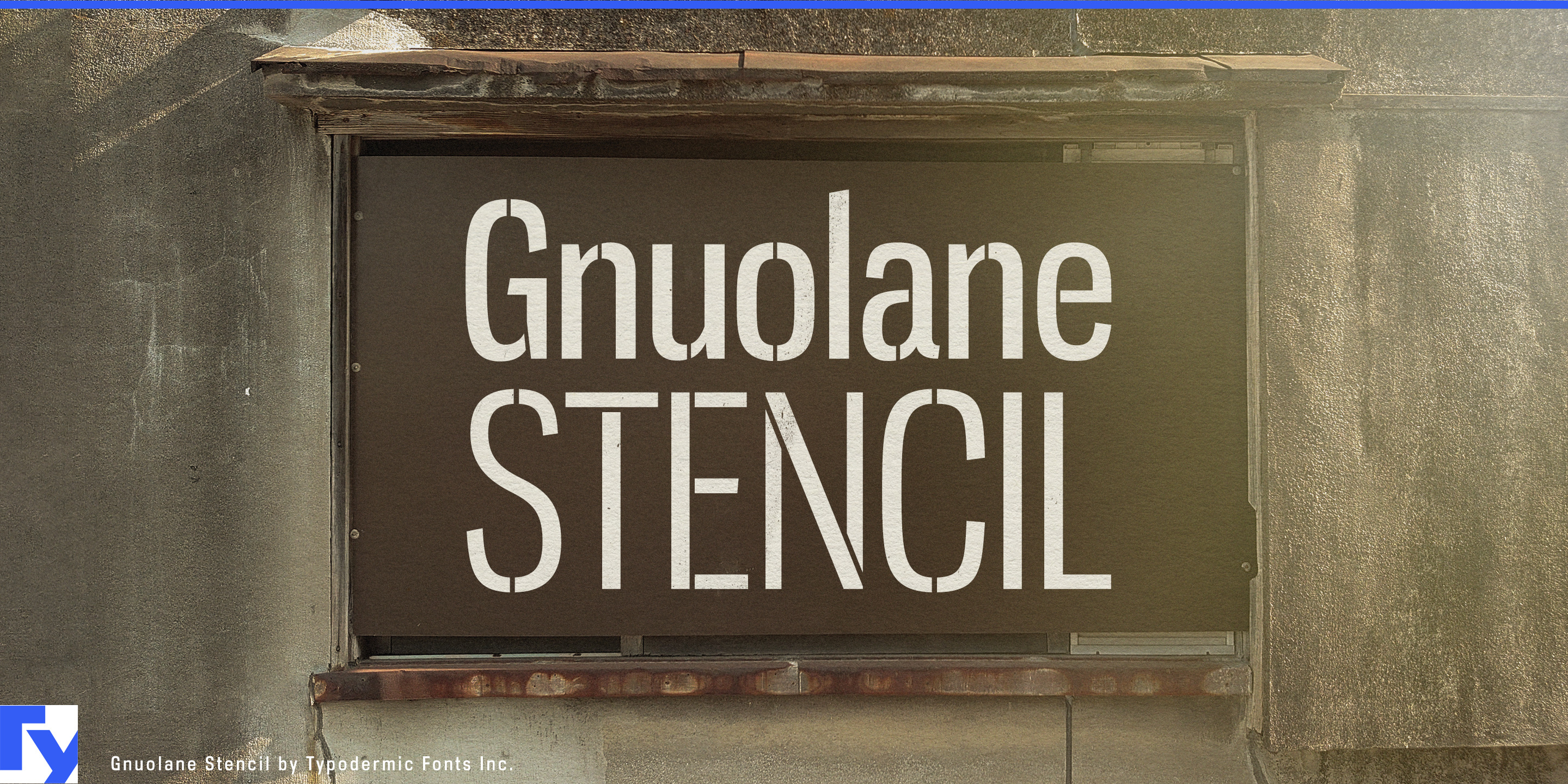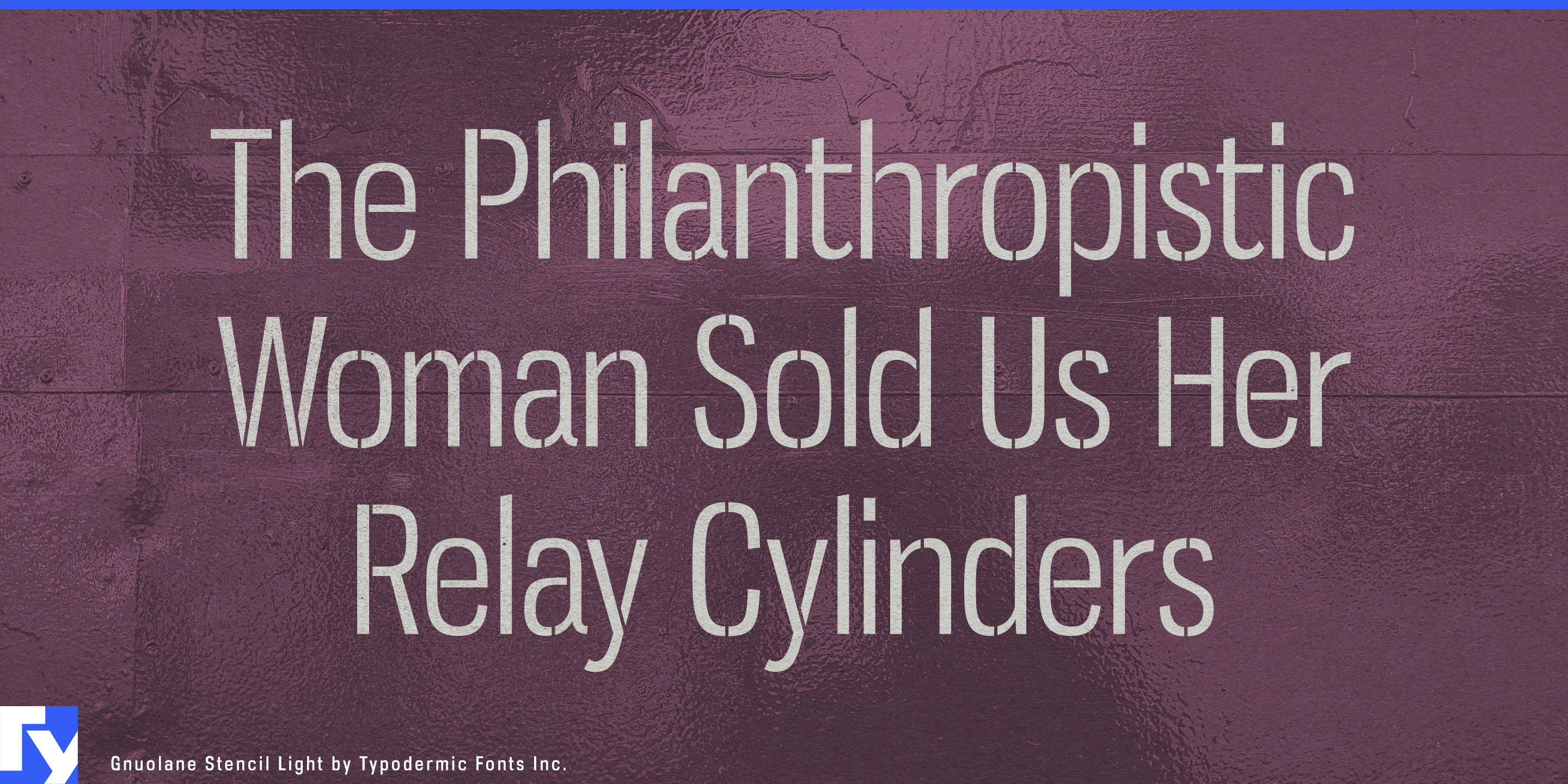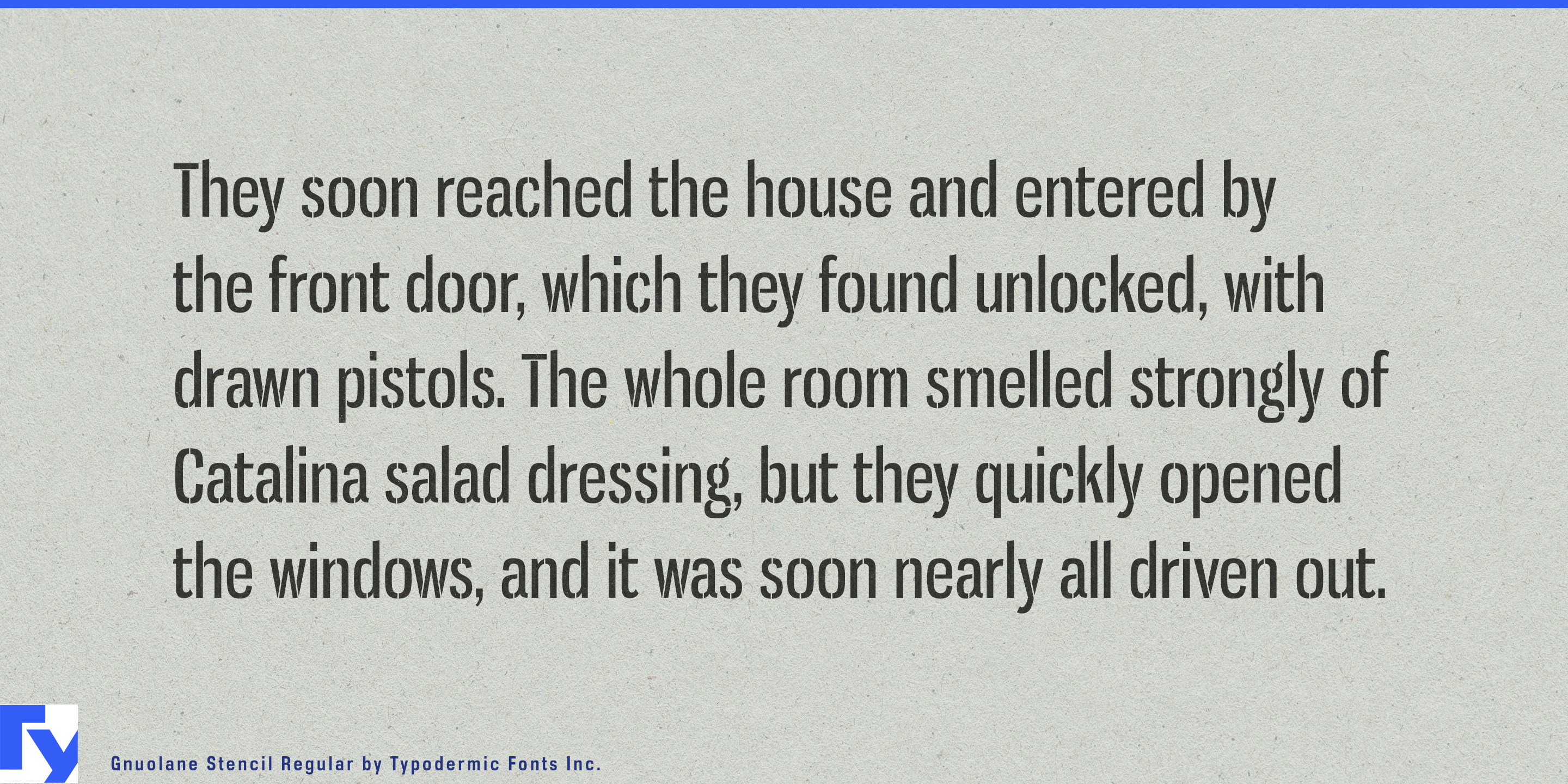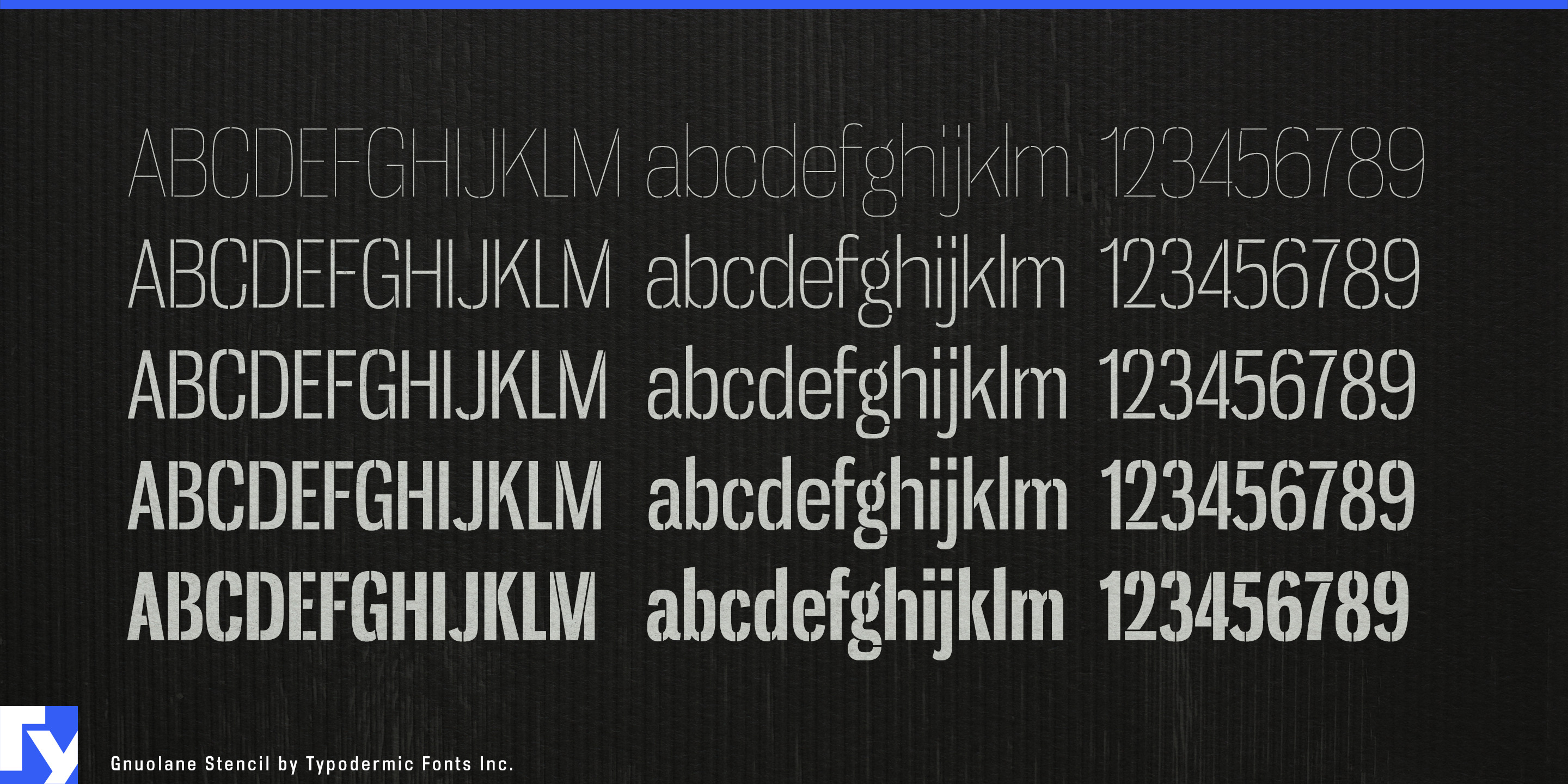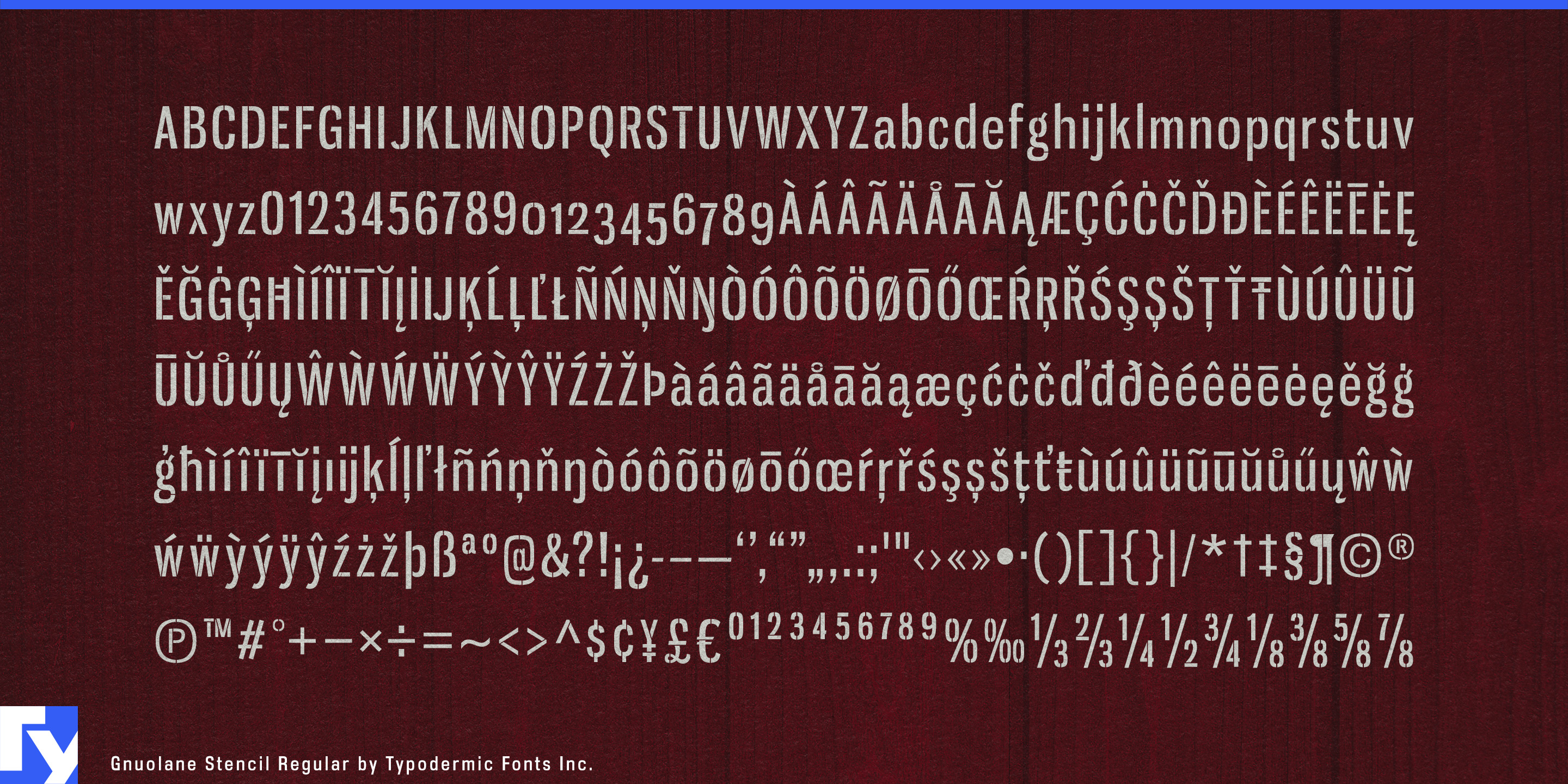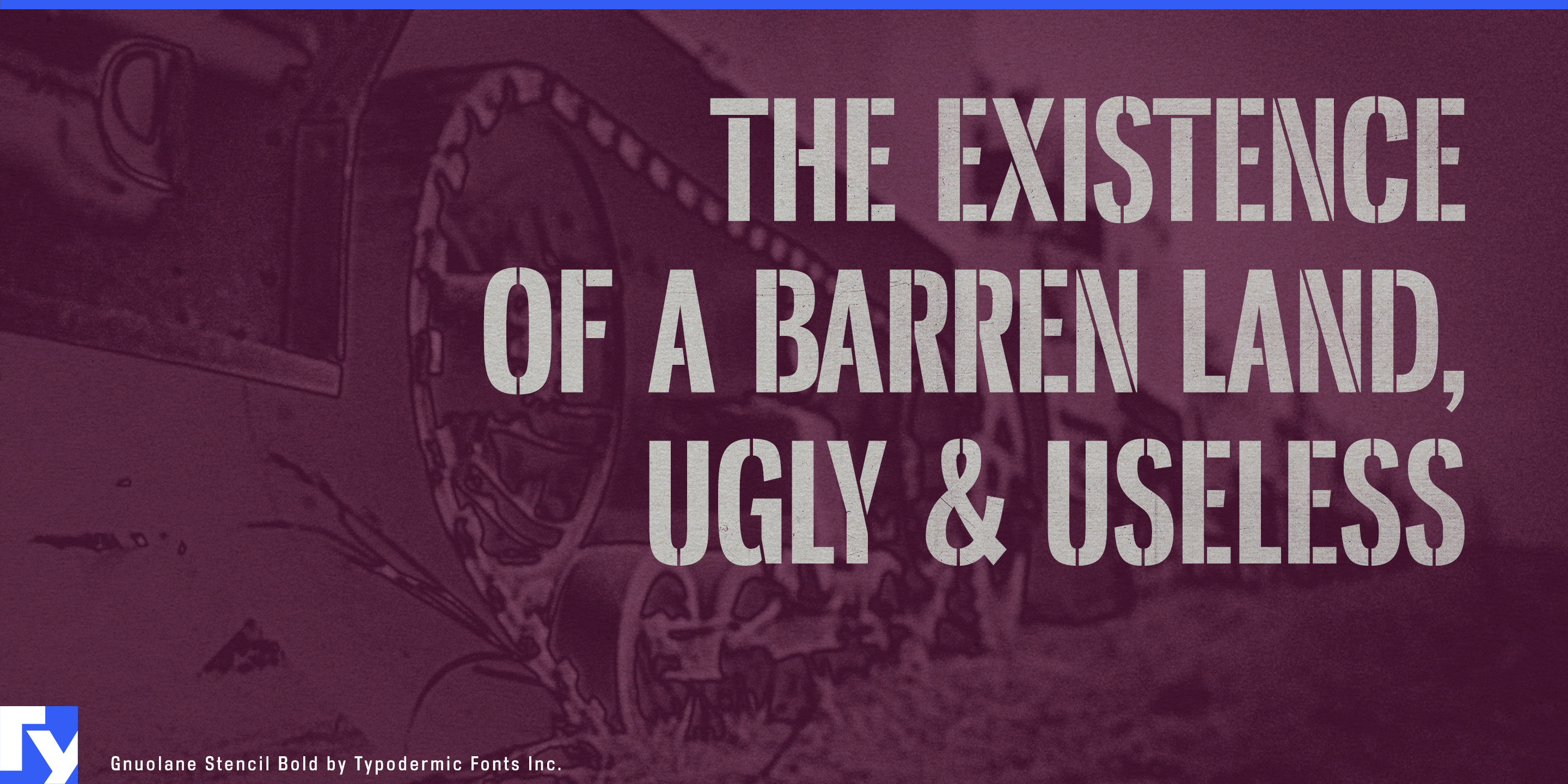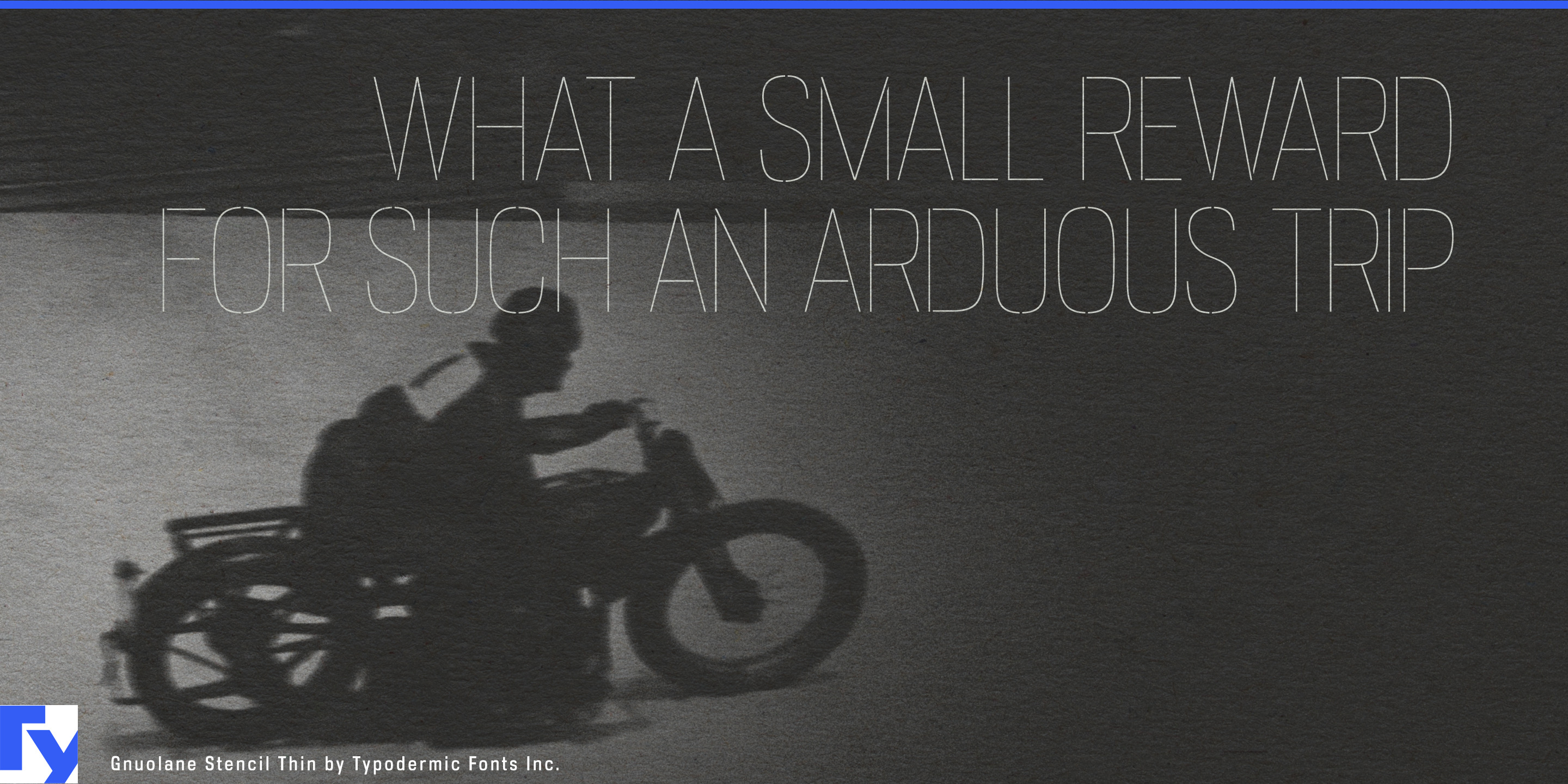
Gnuolane Stencil
Gnuolane Stencil is where stencil utility meets modern poise. Its condensed, superelliptical letterforms carry a mid-century warmth that’s rare in the stencil genre, making it equally at home on the side of a cargo crate or the cover of a design magazine.
The defining feature is its thin, precise stencil struts—just enough to project that unmistakable stencil aura, but never so heavy that they break the reading flow. Instead of the blunt, utilitarian cuts you might expect, Gnuolane Stencil’s breaks are more like a quiet suggestion, lending texture without stealing attention. Its condensed proportions make it a natural choice for tall signage, space-tight headlines, or packaging where every millimeter counts. In lighter weights, it has an understated, editorial elegance; in bolder weights, it steps forward with confident authority. All five weights share the same smooth superelliptical curves, giving even the heaviest cuts a human, approachable feel.
Gnuolane Stencil thrives in versatility—industrial branding, fashion labels, museum signage, wine bottles, festival posters, tool packaging, architectural wayfinding, and more. With extensive Latin language support, it’s ready for global campaigns as easily as it is for your local storefront.
When you need a stencil typeface that balances edge with elegance, Gnuolane Stencil delivers—a refined workhorse with character made for today.